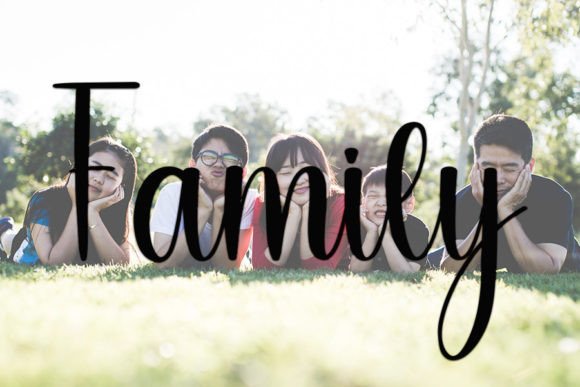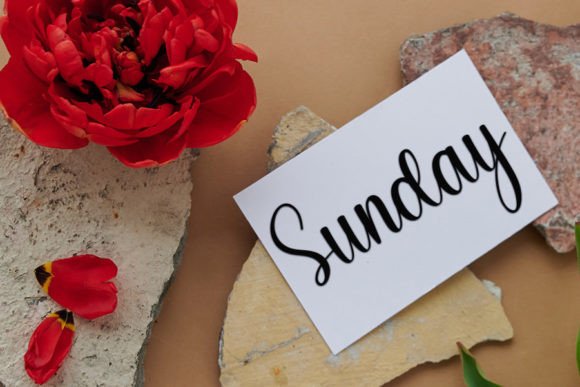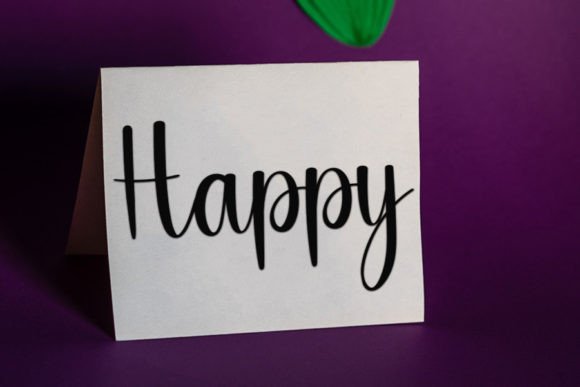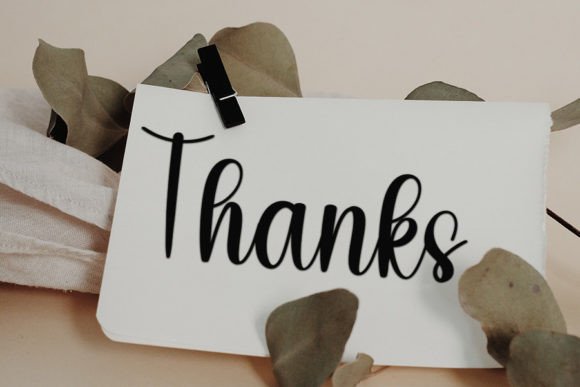
The Designer’s Delight: Child Font
Have you ever been in the middle of a design project, and suddenly, you’re stuck on finding the perfect font? I remember a recent experience where I was working on a branding project for a children’s educational platform. My client wanted a font that was both elegant and playful, but I just couldn’t seem to find the right fit. That’s when I stumbled upon the Child Font, and it instantly became my go-to choice.
A First Impression: What I Love About Child Font
The Child Font is described as a neat and beautiful handwritten font with an elegant touch. And trust me, it lives up to that description! Here are some things that I absolutely love about this font:
- ✨ Elegant and Refined: The Child Font has an incredibly distinct and timeless style that’s perfect for projects that require a touch of sophistication.
- ✅ Versatile: This font is suitable for a wide range of projects, from branding and advertising to packaging and digital media.
- 💫 Unique Character: The Child Font has a unique character that sets it apart from other fonts in its category.
The Not-So-Perfect: Small Quirks and Limitations
While the Child Font is an excellent choice for many projects, there are a few small quirks to be aware of:
- 🤔 Limited Use in Small Sizes: Like many handwritten fonts, the Child Font can be a bit challenging to read in small sizes. It’s best used in larger sizes (24px and above) to ensure optimal legibility.
- ⚠️ Glyph Limitations: The Child Font may not have an extensive range of glyphs or special characters, which could limit its use in certain projects.
The Story Behind Child Font
The Child Font was designed by a talented typographer who wanted to create a font that was both elegant and playful. Inspired by classic handwritten fonts, the designer aimed to create a font that would be perfect for a wide range of projects, from branding and advertising to packaging and digital media.
| Font Name | Child Font |
| What is the Child Font? | The Child Font is a neat and beautiful handwritten font with an elegant touch, perfect for a wide range of projects. |
| Is the Child Font available in different styles? | Currently, the Child Font is available in a single style, but the designer may release additional styles in the future. |